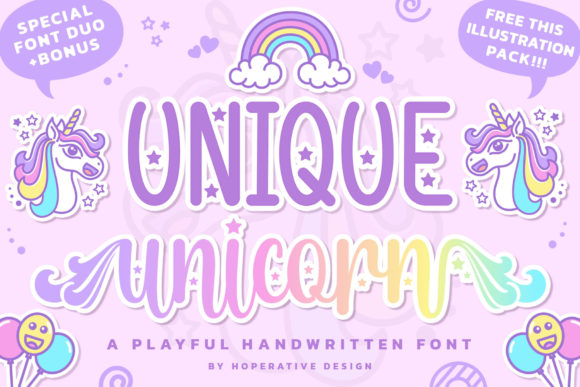
Are you on the hunt for the perfect font for your Easter baskets? Look no further than Unique Unicorn Font by Hoperative Design. This fun and playful font duo (script and display) is sure to add a touch of magic to any design project.
One of the standout features of Unique Unicorn is its versatility. It's not just limited to Easter baskets, but can be used for a variety of unicorn-themed projects, such as children's clothes, birthday cards, and even children's books! The bonus unicorn illustrations that come with the font make it even more attractive and cute.
But what really sets Unique Unicorn apart from other fonts is its PUA encoding. This means that accessing all of the glyphs and swashes is a breeze, making it easy to add a personal touch to your designs.